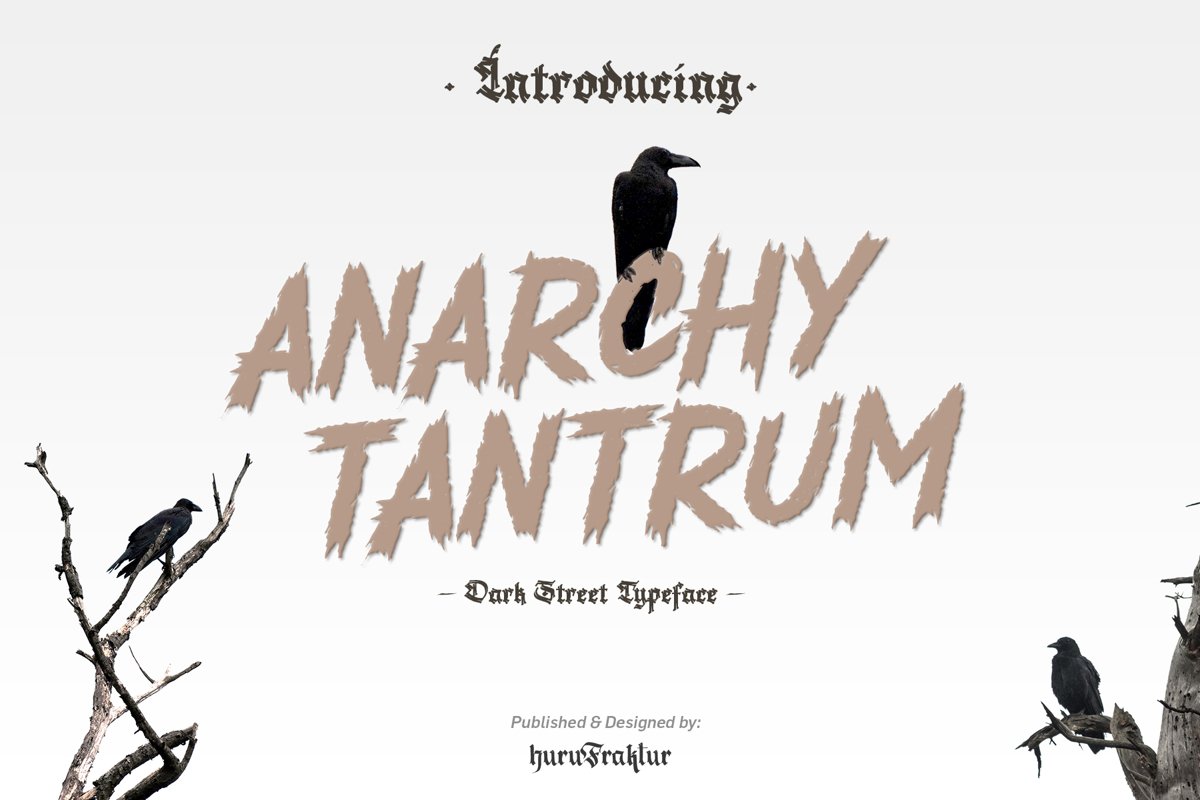
Anarchy Tantrum
Take your design game to the next level with a Anarchy Tantrum font.
A hand-drawn script typeface bursting with energy, rough, rustic and bold letters. It's great for Logos, Apparel, Branding, Product packaging, Promotional messages, Bold quotes, Poster, Mural, Print projects and any attention drawing headline which needs a typographic turbo-boost.